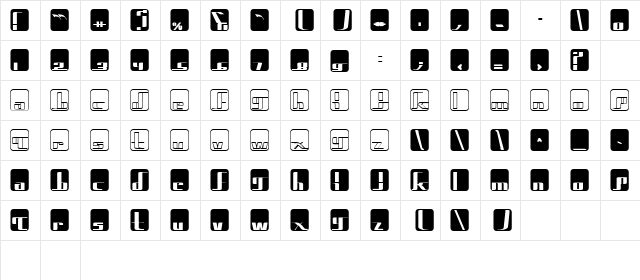
paper chase 2 blocked inside Free Font
paper chase 2 blocked inside
Style: blocked inside
Design Context for paper chase 2
paper chase 2 is a composed and adaptable typeface that performs quietly and consistently across a wide range of design contexts.